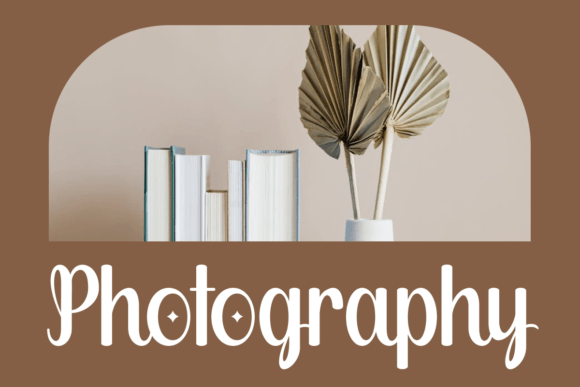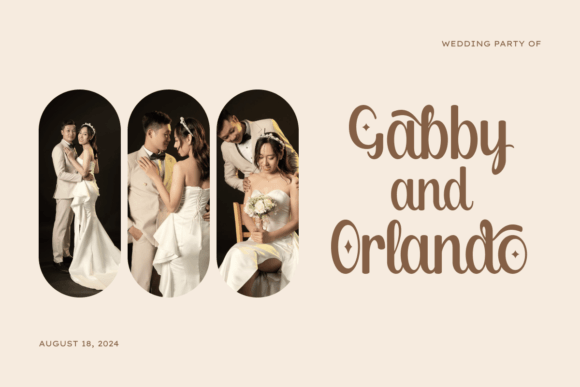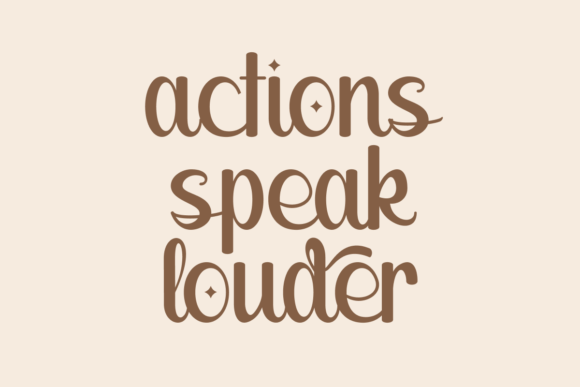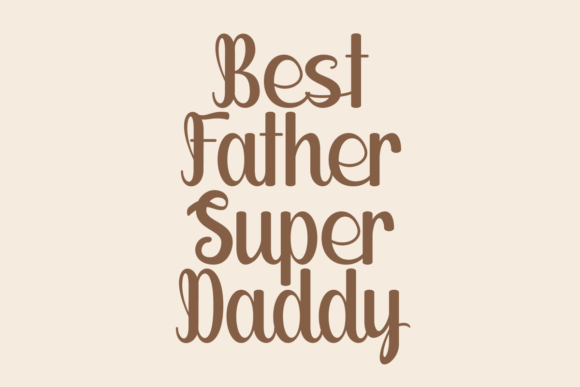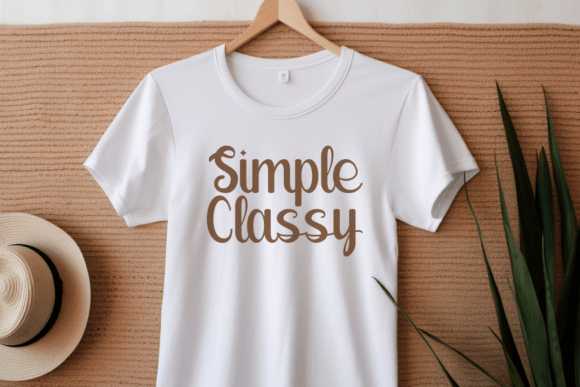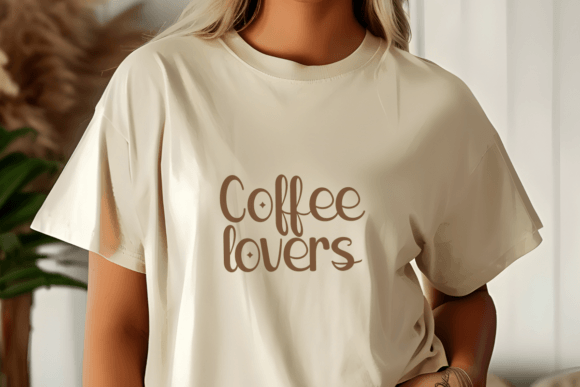
The Perfect Script: Unveiling the Timeless Charm of Graduation Font
As a designer, there’s nothing quite like the thrill of creating something truly special – like a wedding invitation that brings tears to the eyes or a logo that perfectly captures a brand’s essence. And it’s often in those moments of creative bliss that we find ourselves searching for that perfect script font to give our designs an extra layer of personality. It’s here that the Graduation Font comes into play – a beautiful, handwritten script font that embodies the warmth and elegance of a handwritten note.
With its unique, handmade strokes and natural feel, the Graduation Font is a valuable addition to any designer’s toolkit. Whether you’re working on a high-end branding project or a heartfelt greeting card, this font brings a level of sophistication and refinement that’s hard to find elsewhere. And with its versatility and charm, it’s no wonder that the Graduation Font has become a go-to choice for designers looking to add a personal touch to their designs.
Graduation Font Key Features
- Font Family: Graduation Font is a unique and customizable font that can be tailored to various styles and designs.
- Unique Characteristics: Features a dynamic and celebratory feel, making it perfect for graduation announcements, certificates, and other milestone events.
Graduation Font Review
Overall, I think the Graduation Font is a solid choice for any project that needs a celebratory feel. Here are some things that really stand out:
- ✨ The font’s playful, cursive design makes it perfect for titles and headings where you want to add some flair.
- ✨ The font is highly legible, even at smaller sizes, making it a great choice for body text or for use on digital platforms.
- ✨ The font’s versatility allows it to work well in both formal and informal settings, making it a great choice for a wide range of projects.
- ⚠️ The font may not be the best choice for projects that require a more serious or formal tone, as it can come across as a bit too playful.
Overall, I think the Graduation Font is a great choice for projects that need a celebratory feel. While it may not be the best choice for every project, it’s a solid option for those that require a playful, cursive design. With a little creativity and consideration, the Graduation Font can be a great addition to your design toolkit.
Tips for Getting the Most Out of Graduation Font
Use Graduation Font to add a touch of elegance and sophistication to your designs.
Combine Graduation Font with other decorative elements to create a unique look.
Graduation Font is perfect for:
Graduation invitations and announcements
Wedding invitations and decorations
Formal events and parties
Alternatives to Graduation Font for Designers
Playfair Display is a luxurious and elegant serif font, perfect for formal invitations, luxury branding, and high-end designs. It has a similar vintage feel to Graduation Font, but with more refined and sophisticated lines. Playfair Display is ideal for designers who want to create a sense of opulence and grandeur in their projects.
Cambria
Cambria is a classic serif font that is highly legible and suitable for body text. It has a clean and modern design, making it a great alternative to Graduation Font for designers who want a more understated look. Cambria is ideal for academic and corporate projects where a professional and approachable tone is required.
Didot is a elegant and sophisticated serif font, often used for high-end fashion and luxury branding. It has a similar luxurious feel to Graduation Font, but with more refined and precise lines. Didot is ideal for designers who want to create a sense of glamour and sophistication in their projects.
What font sizes and styles are available in Graduation Font?
Graduation Font comes in a range of font sizes and styles, including Regular, Bold, Italic, and Bold Italic. The font family includes uppercase and lowercase letters, numbers, and punctuation marks. The font sizes range from 8pt to 72pt, making it suitable for a variety of applications, from small text to large headings.